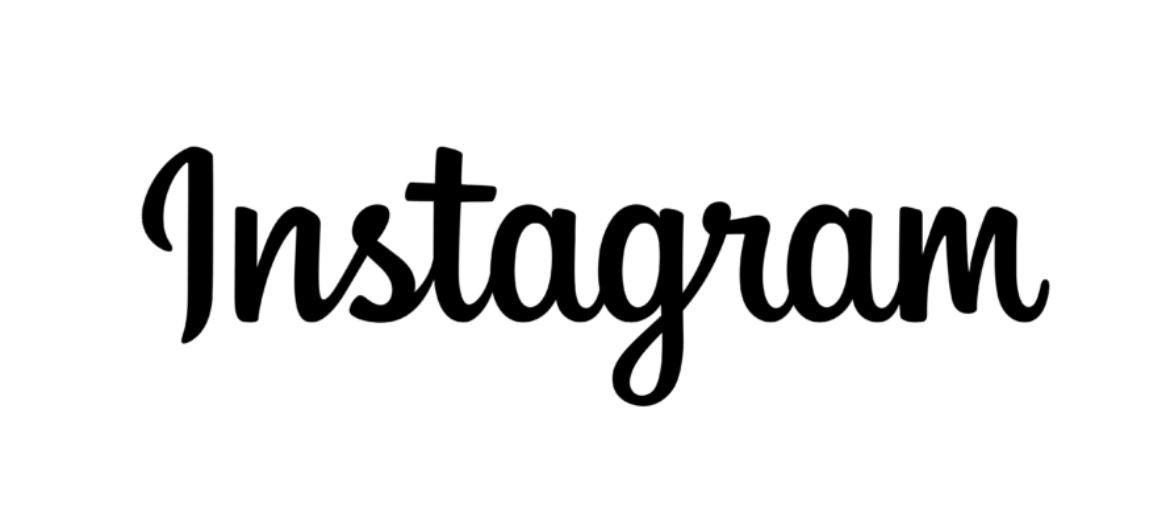
Instagram Font
Instagram Font has always caught attention because of how fun and approachable it feels. Every time you open the app or see its branding, it’s clear how much the Instagram logo font shapes the platform’s friendly and creative personality. The typeface makes the brand feel social, trendy, and instantly recognizable. The Instagram logo font is based on a custom script inspired by Billabong, a flowing and stylish typeface. This choice captures creativity, movement, and individuality—qualities that perfectly match the spirit of Instagram, adding a personal, handwritten feel that connects well with users worldwide.
Compared to other social media brands, Instagram Font stands out for its playful elegance. That’s why it has become such an iconic part of digital culture. Instagram Font proves that the right logo font can reflect not only a brand’s identity but also the lifestyle it promotes.